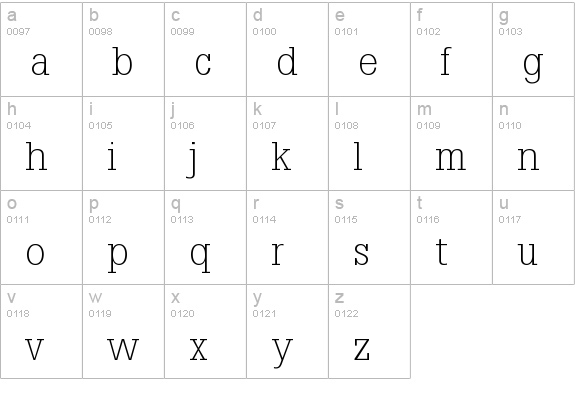
Boton Light is a refined, elegant variant in the Boton typeface family \xE2\x80\x94 well suited to elegant body text, refined sub-headings, and luxury branding.
Boton Light font is a modern and elegant typeface that exudes sophistication and charm. Its clean lines and minimalistic design make it perfect for a wide range of design projects, from branding to editorial design. The light weight of the font adds a sense of delicacy and refinement to any text, making it ideal for use in headings, quotes, or body text. What makes Boton Light font even more appealing is that it is available for free download at FontsMarket.com. This means that you can easily access and use this beautiful font in your projects without any cost. Whether you're a designer looking to add a touch of elegance to your work or a business owner in need of a stylish font for your branding materials, Boton Light font is the perfect choice. Download it today and elevate your designs with this timeless and versatile typeface.